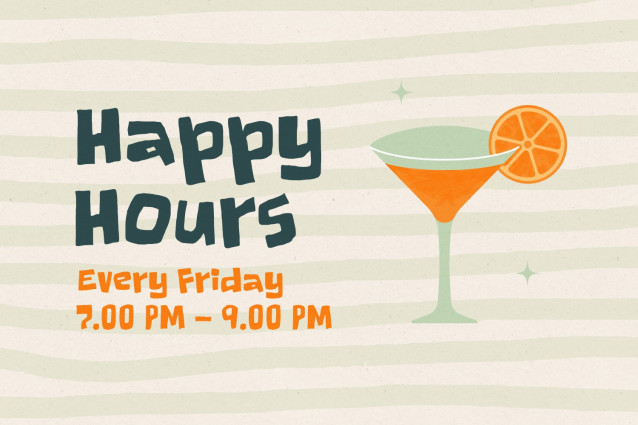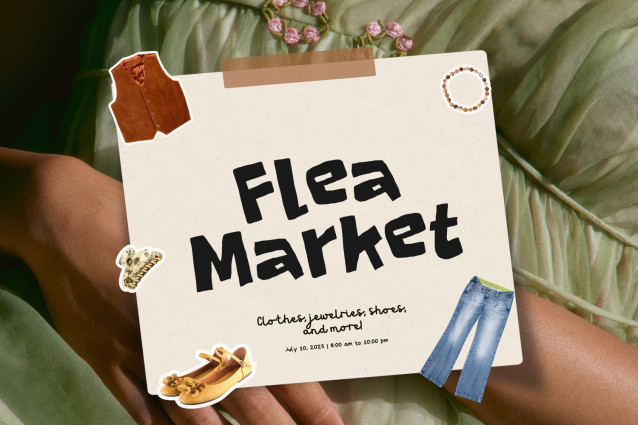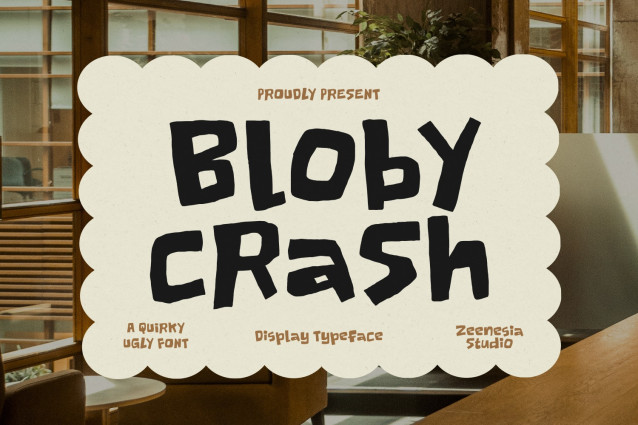
Bloby Crash Font
Bloby Crash is a quirky ugly font that celebrates imperfection with confidence. Its chunky hand-drawn shapes, uneven curves, and playful attitude create a bold personality that instantly grabs attention. Perfect for posters, kids branding, packaging, social media graphics, album covers, and fun creative projects, this font brings chaotic charm in the best possible way.
With its raw and expressive look, Bloby Crash feels spontaneous, artistic, and unapologetically unique — turning ordinary typography into something loud, memorable, and full of character.